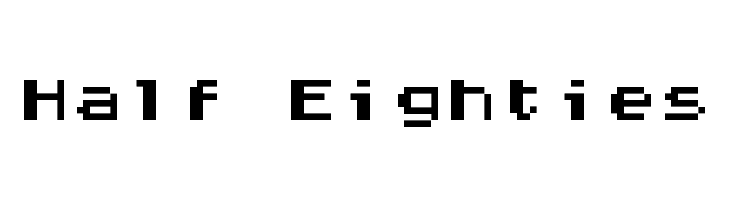
A pixelated, monospaced font with a retro digital aesthetic.
A pixelated, retro-style font inspired by early digital displays.
A bold, pixelated font with a retro digital style.
A bold, pixelated font with a retro video game style.
A pixelated, blocky font inspired by retro digital displays.
A pixelated, retro-style font with a blocky, digital appearance.